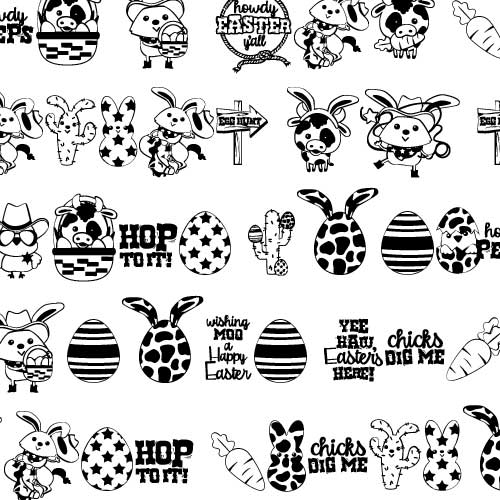
DB Howdy - Easter - DB
This adorable doodlebat font features 26 cute western Easter images perfect for cards, crafts, gifts, planner stickers, decor, scrapbook pages, parties and more!